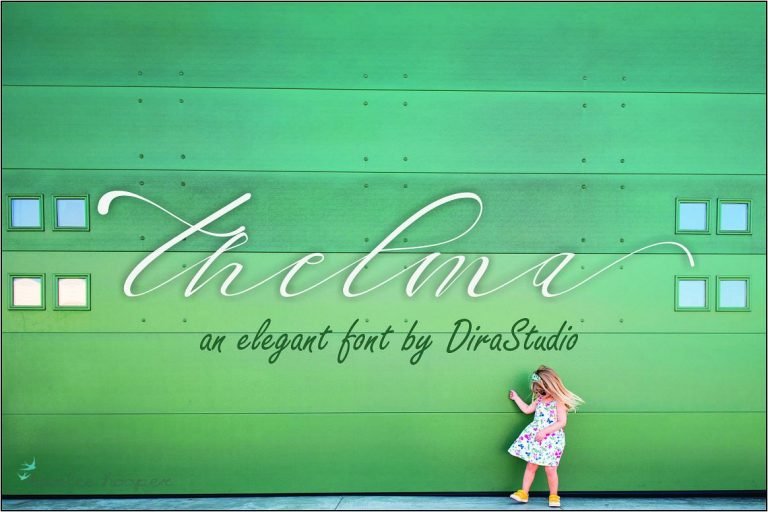
Thelma Script Font
An elegant font by Dira Studio. Introducing Thelma Font. Thelma is a new fresh font with lovely, elegant, and modern touch. The designer make the style balance to each font. It also have some alternative for the small letters , beginning and ending of letters . Thelma can be used for invitation card, heading, blog, logo, signature, poster, name card, etc.